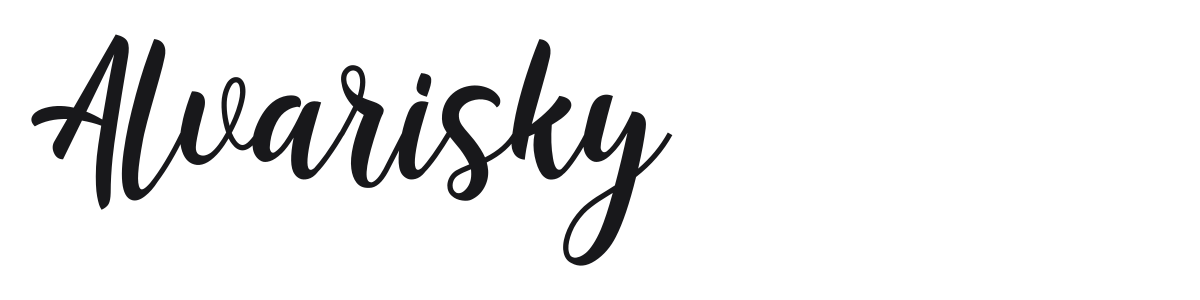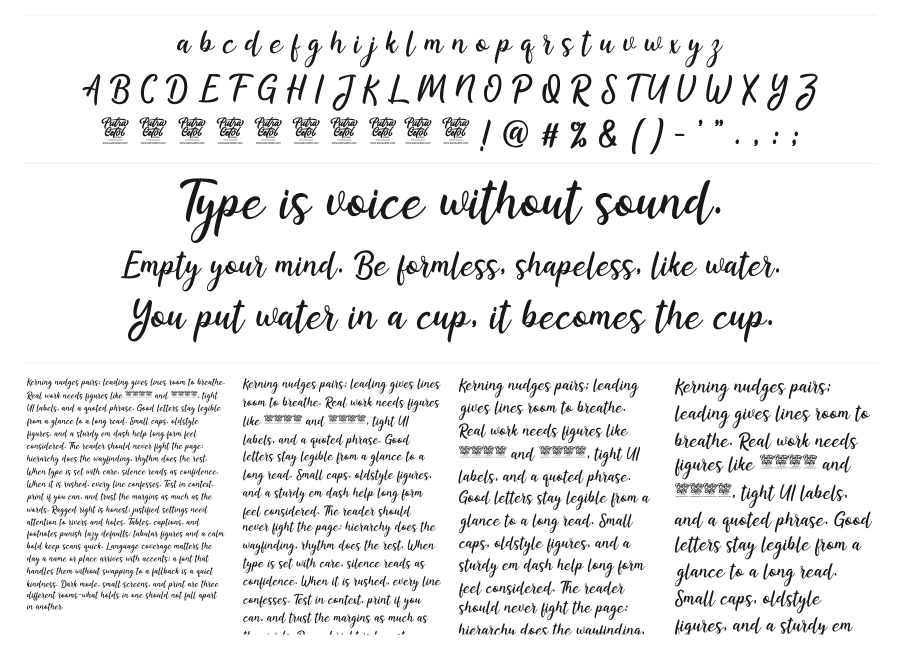
Alvarisky
Alvarisky is a casual brush script from PutraCetol Studio with a lively, hand-lettered energy. The flowing connections, looped ascenders, and natural stroke variation give it an approachable warmth that works well at large display sizes. It fits comfortably in branding and packaging contexts where a handcrafted feel matters.